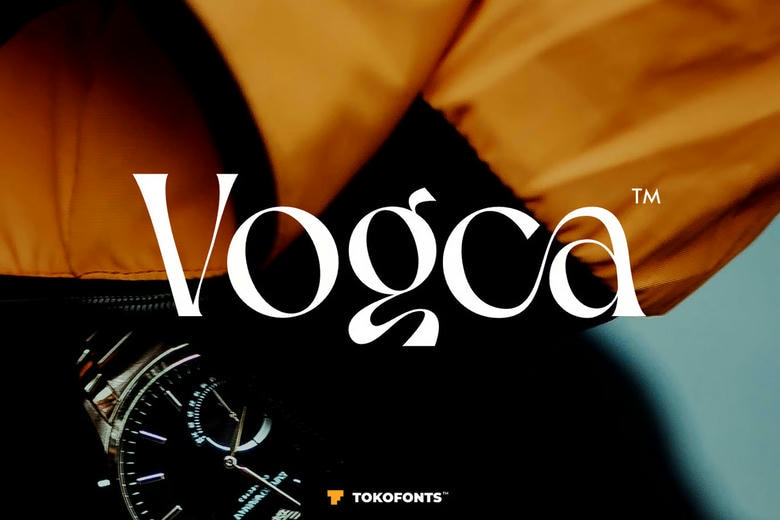
Vogca Font
Vogca is a serif typeface that represents an approach to minimal but clean elegant design and, therefore, can be used in numerous creative projects of different profiles. It is sophisticated in its design, making it look more professional, but not over the top. Having the luxurious details and a high level of modernity, the font can fit perfectly well into cinematic titles, travel campaigns and other visual storytelling requirements which require a classic nature.
Fully appropriate to the ideas of royal branding, this font brings uniqueness to any brand image and does not disrupt the modern design. It is very flexible thus suitable in music covers, trendy cafe menu, and lifestyle promotions. Bold statements or understated accents, this contemporary font will provide an eye-catching blend of beauty, style and utilitarianism.
Vogca Serif Font